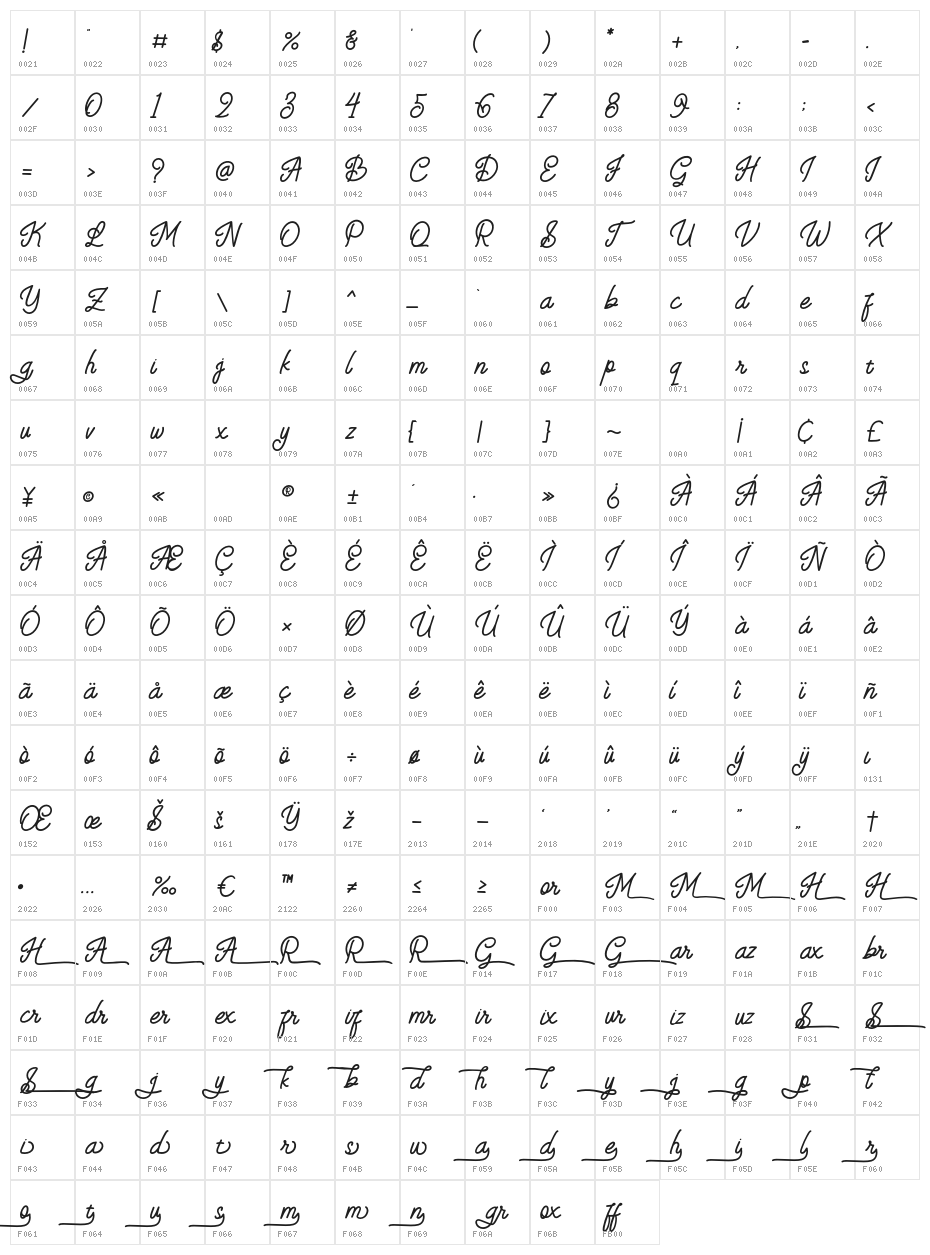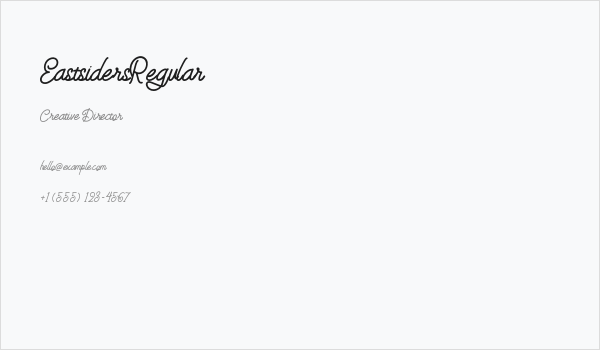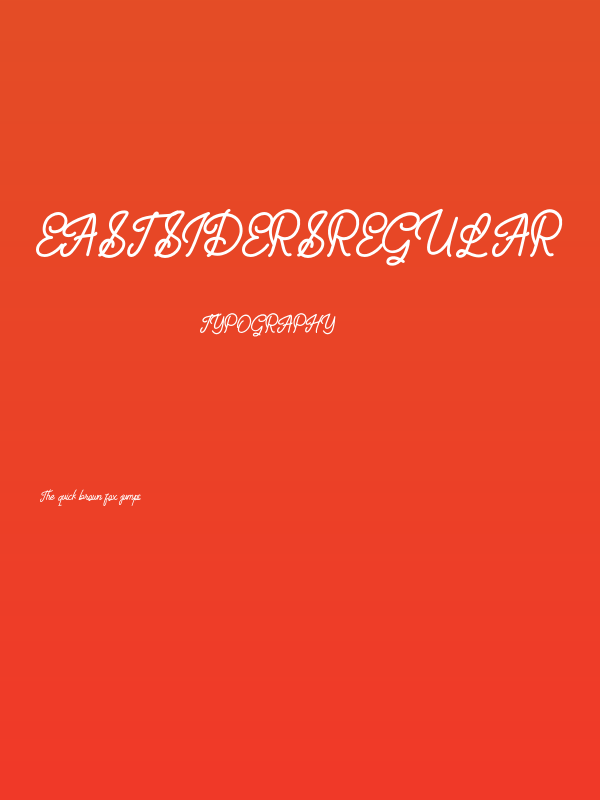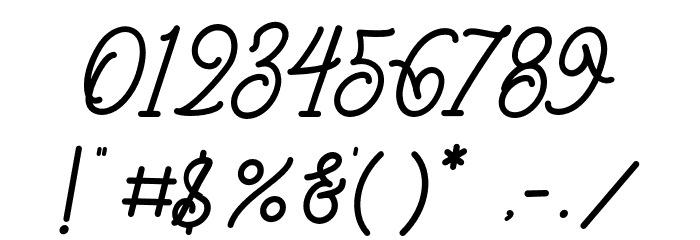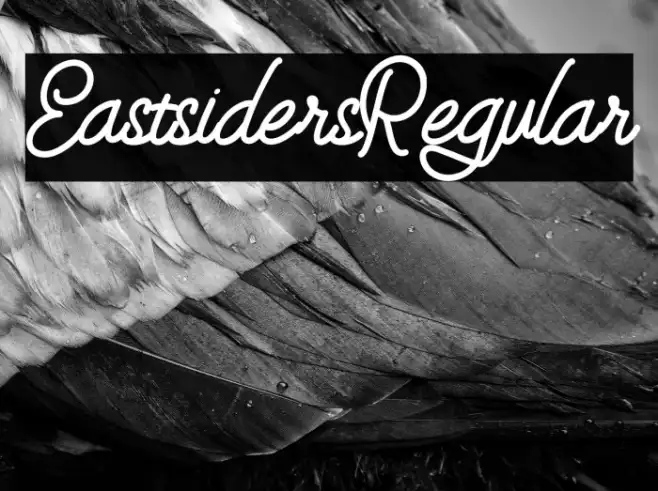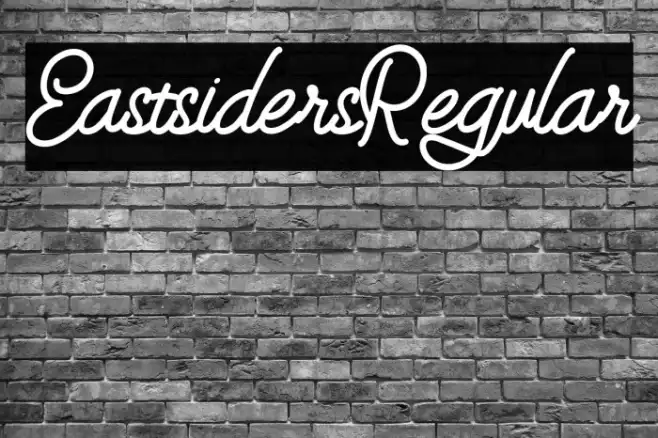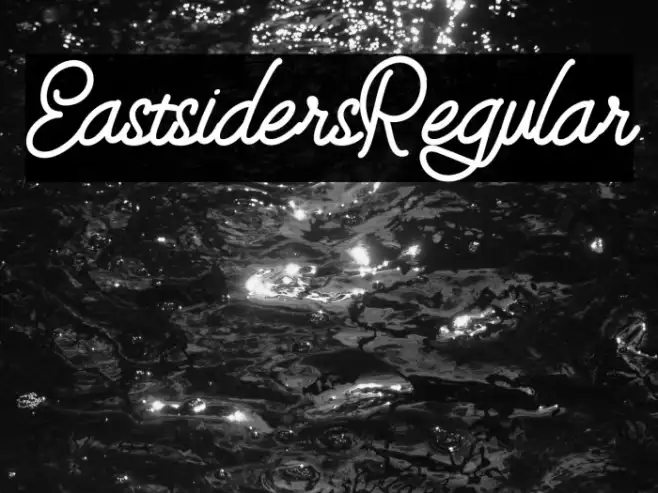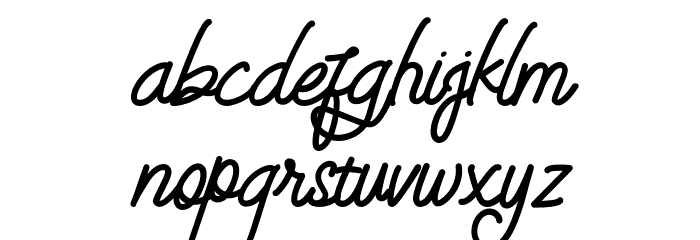
EastsidersRegular Font
EastsidersRegular Description
This elegant script font features a flowing, cursive style with smooth, connected strokes that mimic natural handwriting. The uppercase letters are ornate and slightly larger than the lowercase, providing a graceful balance. The numerals maintain the same fluidity, ensuring consistency across all characters. Special characters are designed to blend seamlessly with the alphabet, enhancing the font's versatility. The overall appearance is sophisticated and artistic, making it suitable for a variety of creative applications.
| Proposed Projects | Ideal for wedding invitations, greeting cards, personal branding, and artistic projects. |